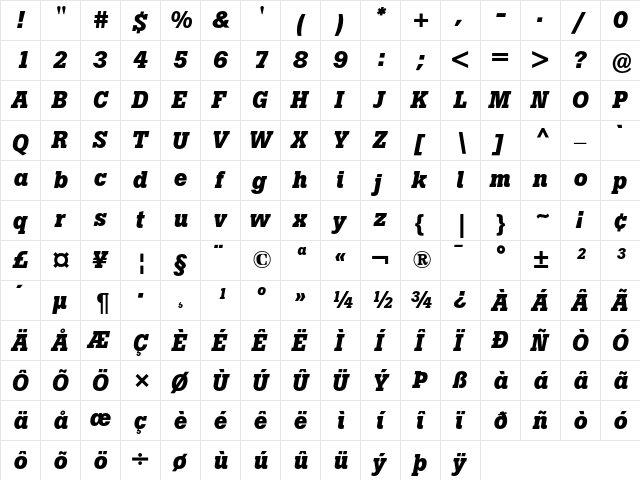
Boton Bold Italic
Design Context for Boton Typeface
Boton offers clean, dependable letterforms without strong stylistic allegiance, making it a practical choice for designers who need flexibility. The dynamic lean of this cut emphasises speed and emphasis in any layout. Its bold stroke weight gives it real presence on the page.
Pro Tip: Try Boton for annotation and caption copy alongside an upright companion — the contrast in angle creates a dynamic but ordered typographic system.